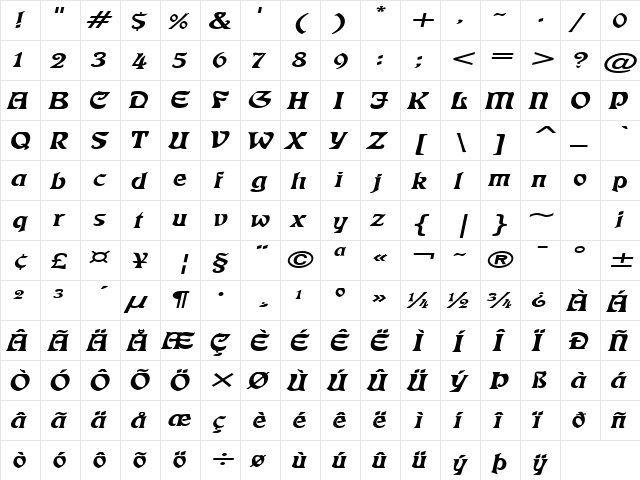
Freedom Extended Italic
Design Context for Freedom Extended Typeface
Freedom Extended is a composed and adaptable typeface that performs quietly and consistently across a wide range of design contexts. The dynamic lean of this cut emphasises speed and emphasis in any layout.
Pro Tip: Try Freedom Extended for annotation and caption copy alongside an upright companion — the contrast in angle creates a dynamic but ordered typographic system.